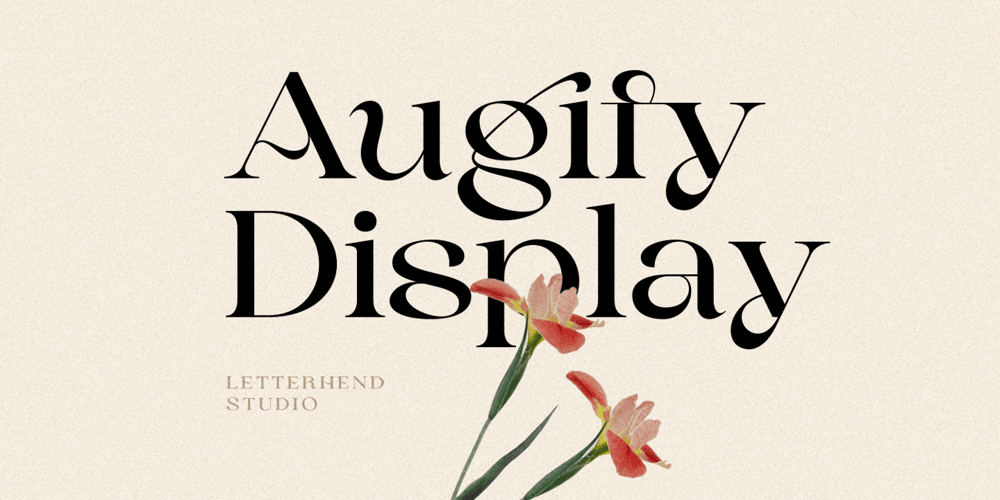
Augify Font Family was designed by Hendry Juanda and published by Letterhend. Augify contains 1 styles and family package options. Augify Display s a sophisticated serif with unique letterform. It has many beautiful ligatures which you can play around to match your project, whether for a standout headline, or for a tagline, you name it. The unique letterform makes this font one of a kind! Perfectly to be applied to the other various formal forms such as invitations, labels, logos, magazines, books, greeting / wedding cards, packaging, fashion, make up, stationery, novels, labels or any type of advertising purpose.Features : uppercase & lowercase numbers and punctuation multilingual alternates & ligatures PUA encoded We highly recommend using a program that supports OpenType features and Glyphs panels like many of Adobe apps and Corel Draw, so you can see and access all Glyph variations. How to access opentype feature : letterhend.com/tutorials/using-opentype-feature-in-any-software/Email us to letterhend@gmail.com if you need something! Happy Designing!